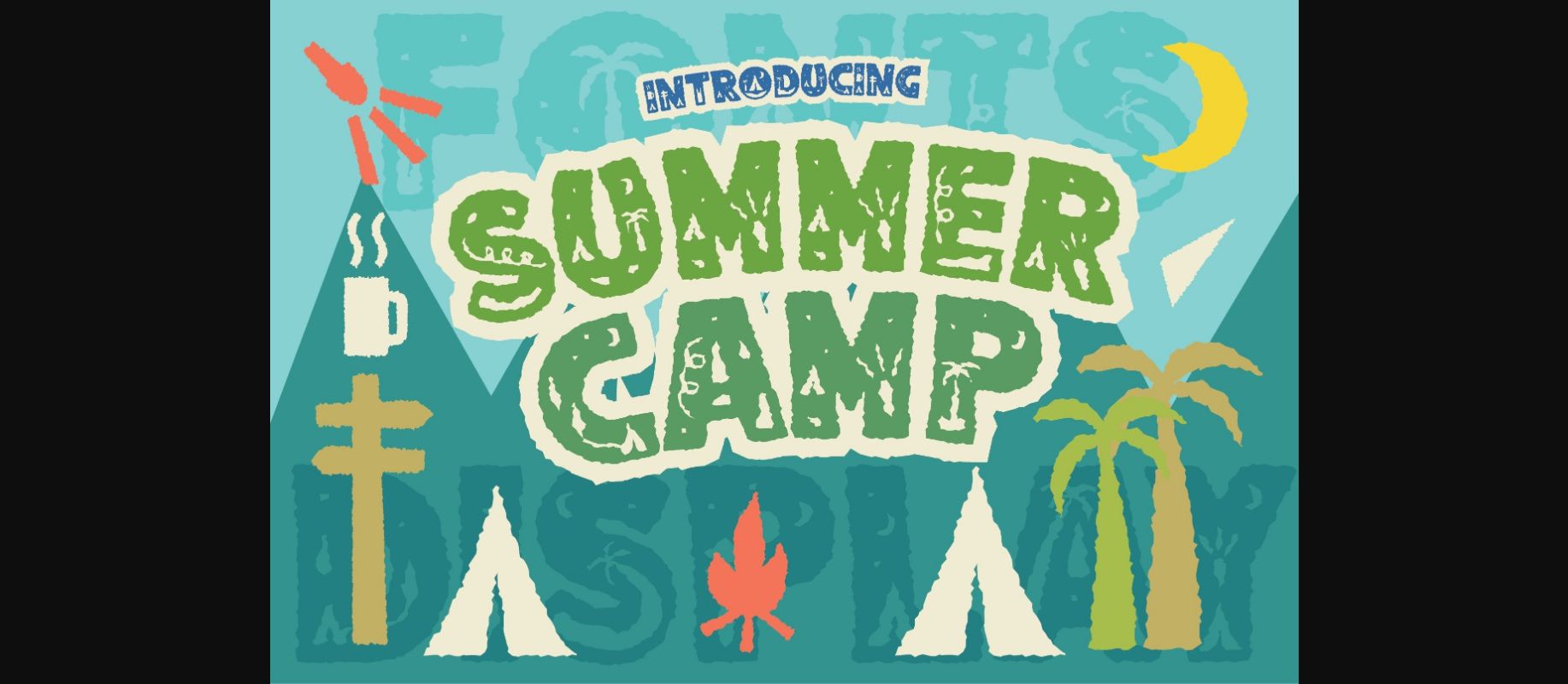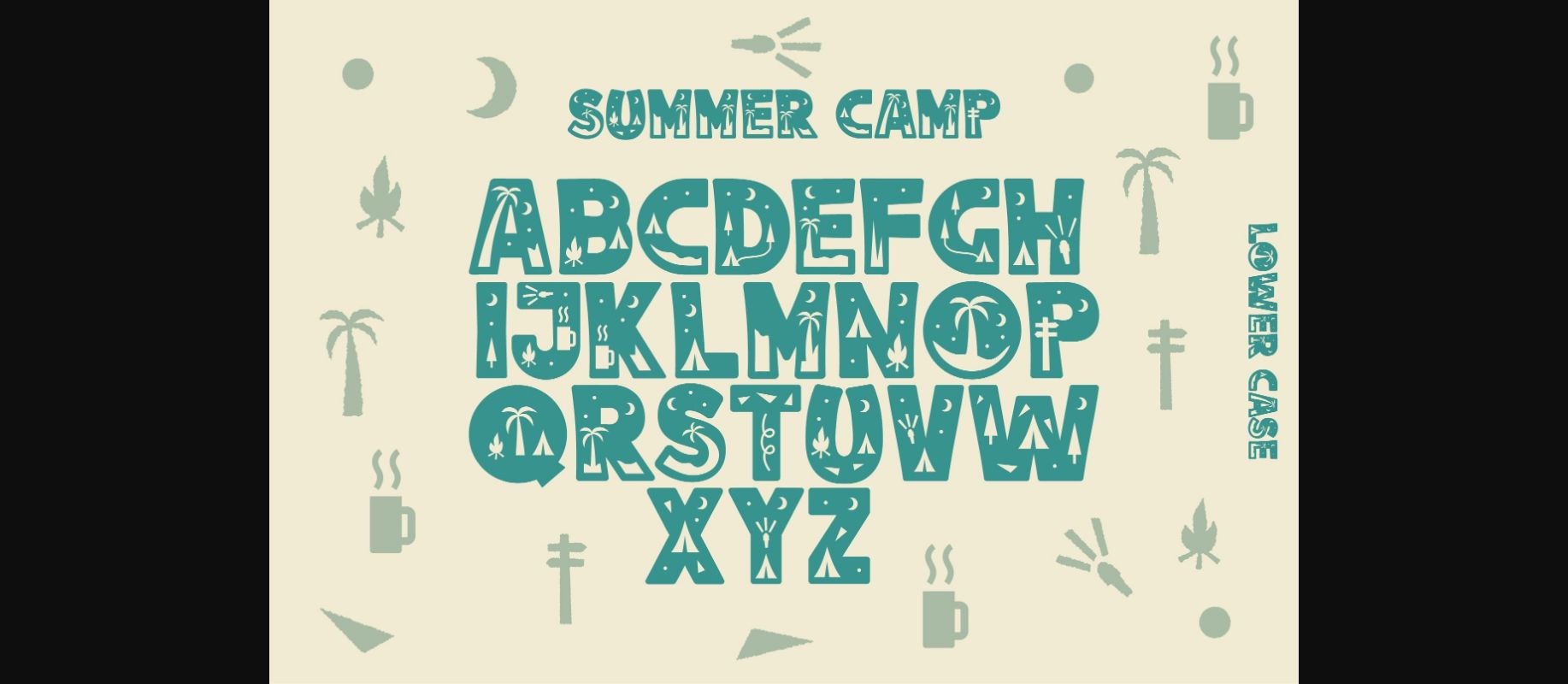
About Summer Camp Font
Summer Camp is a unique and bold decorative font family that you can use for camping-related design purposes. Make your design badges, stickers, or t-shirts with these versatile fonts!